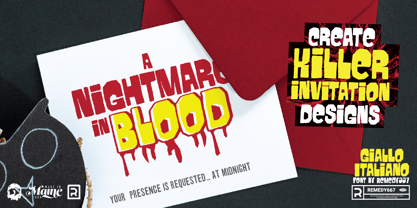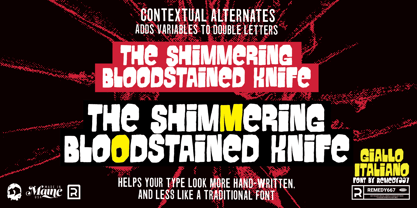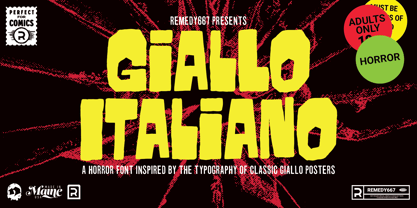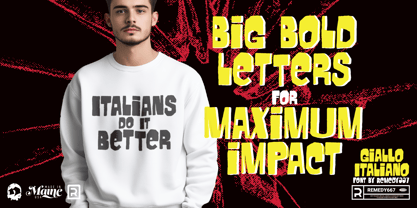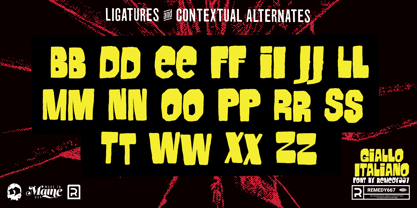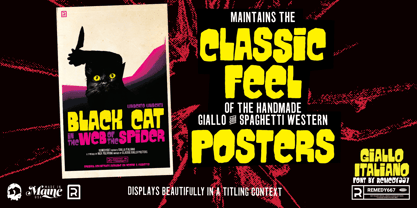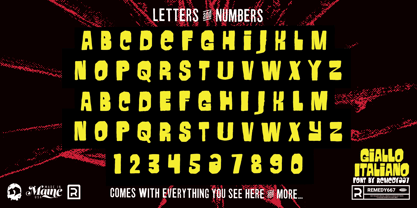
Giallo Italiano
by Remedy667
The Giallo Italiano Font Family was designed by Nick Polifroni and published by Remedy667. Giallo Italiano contains 1 styles. More about this family
Giallo Italiano, a horror font inspired by the typography of classic Giallo posters. Giallo Italiano is hand-drawn to maintain the classic feel of the handmade Giallo and spaghetti western posters of the mid-century. A perfect display face to bring that classic look to your projects.
Giallo Italiano features contextual alternates to add variables that will help eliminate duplicate letters, so your copy will look more hand-made, and less like a traditional font. Giallo Italiano also features multilingual support when you’re ready to take your project international.